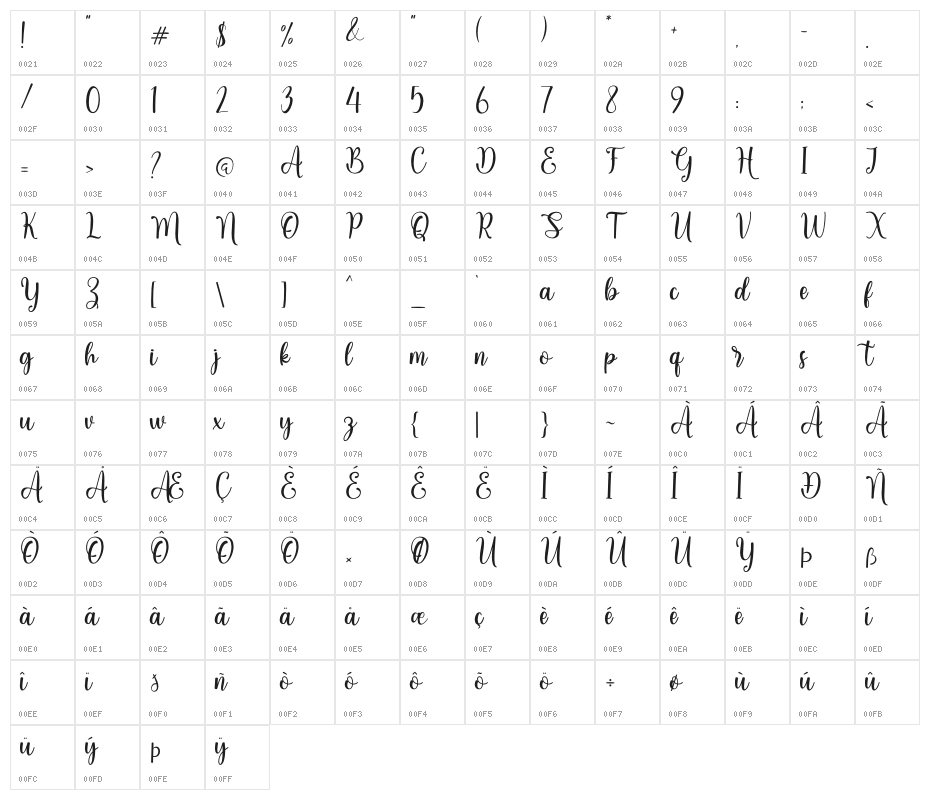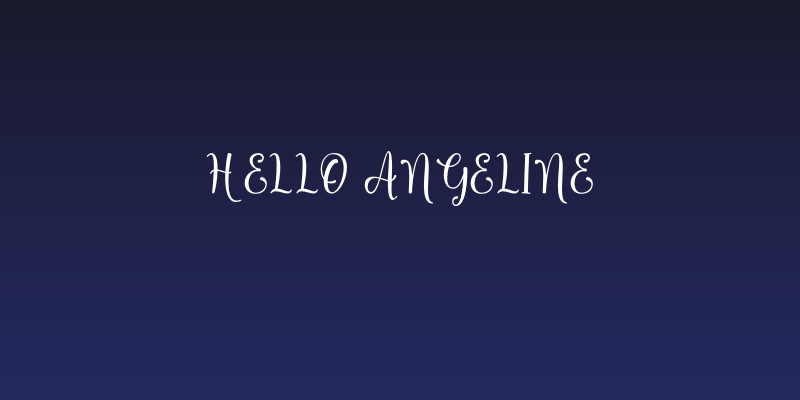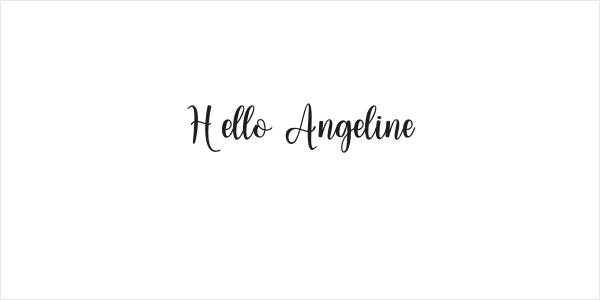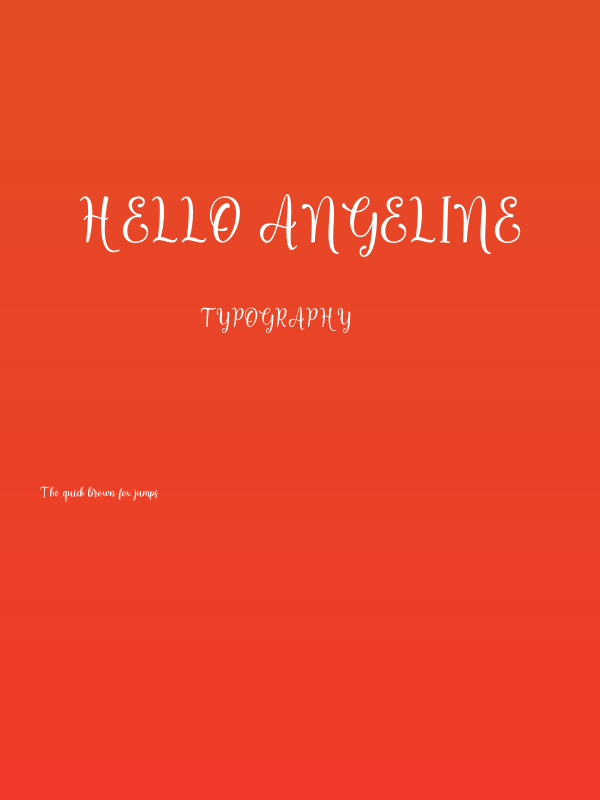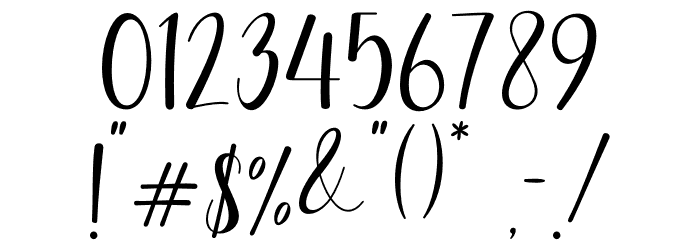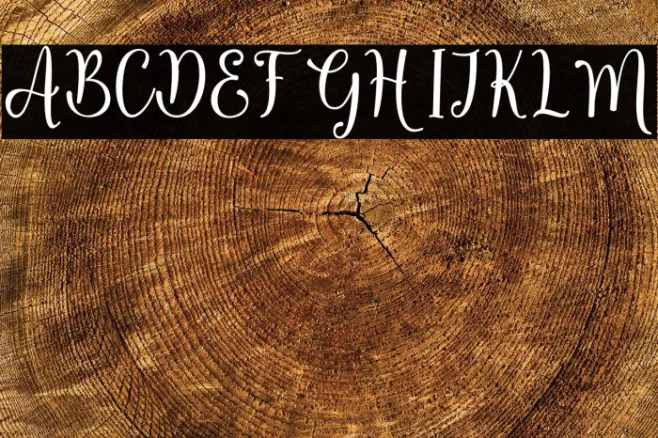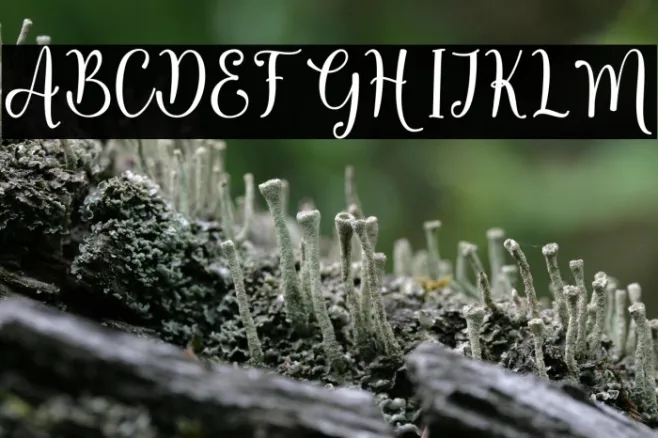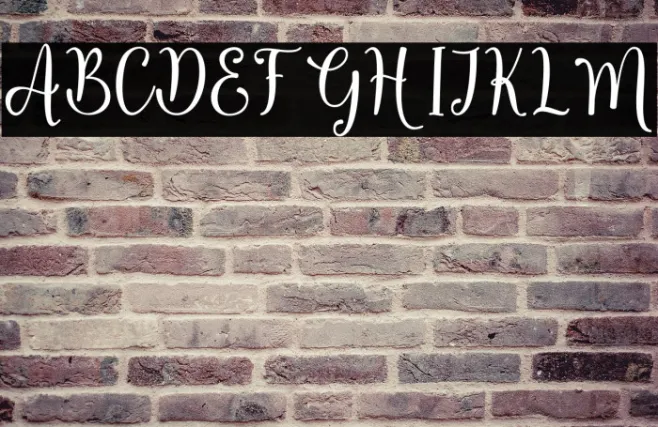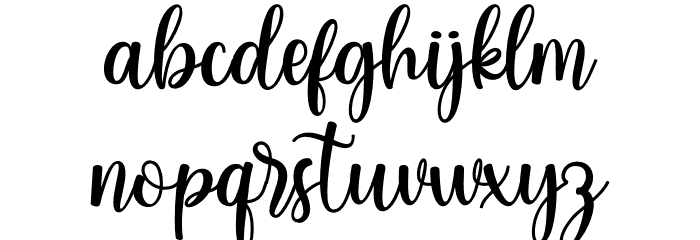
Hello Angeline Font
Hello Angeline Description
This font features an elegant and flowing script style, characterized by its smooth, cursive strokes and a handwritten appearance. The uppercase letters are tall and slightly narrow, with decorative loops and swirls that add a touch of sophistication. The lowercase letters maintain a consistent flow, with some letters extending below the baseline, enhancing its graceful look. The numerals are stylish and maintain the cursive theme, while the special characters blend seamlessly with the overall design. This font exudes a sense of elegance and charm, making it suitable for various creative applications.